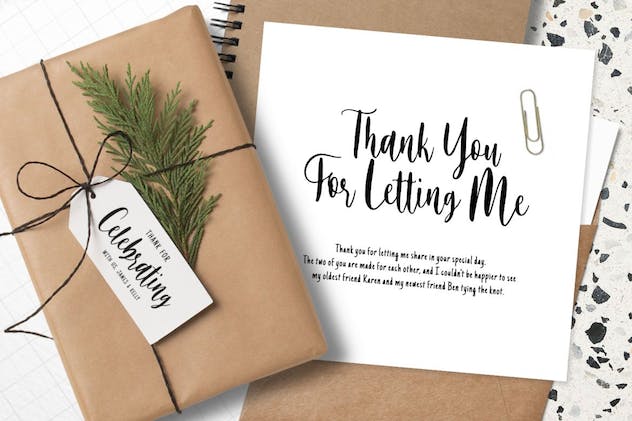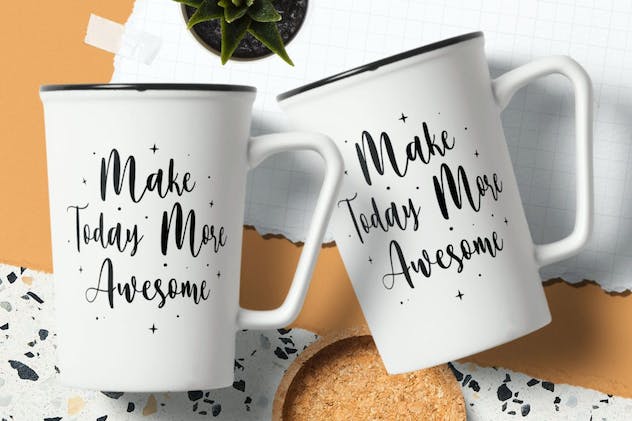
The Softone Font
Another simple handwriting font with a casual design. This font features a modern letter design that makes it suitable for all kinds of print and digital designs. It includes both uppercase and lowercase letters as well.